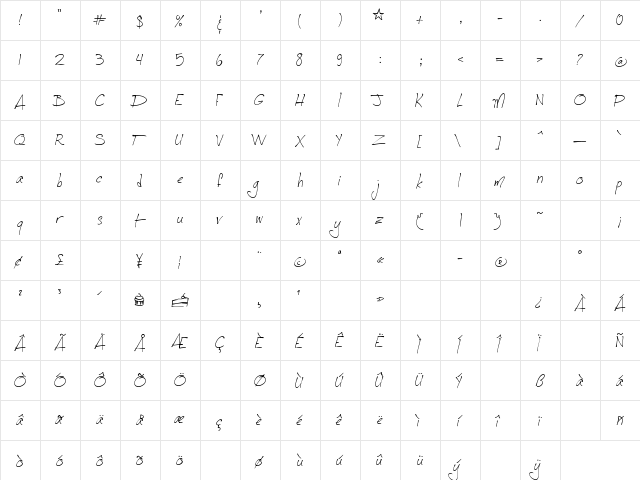
Jellyka CuttyCupcakes Regular
Design Context for Jellyka CuttyCupcakes Typeface
Jellyka CuttyCupcakes is a composed and adaptable typeface that performs quietly and consistently across a wide range of design contexts.